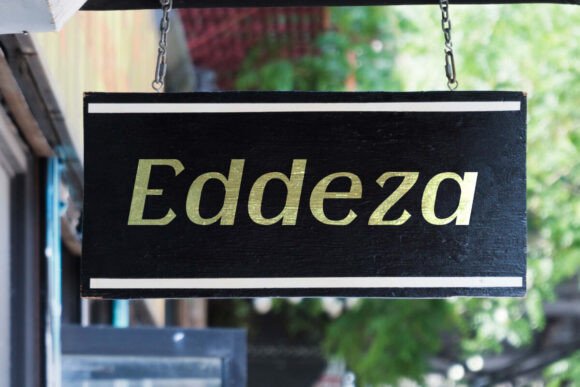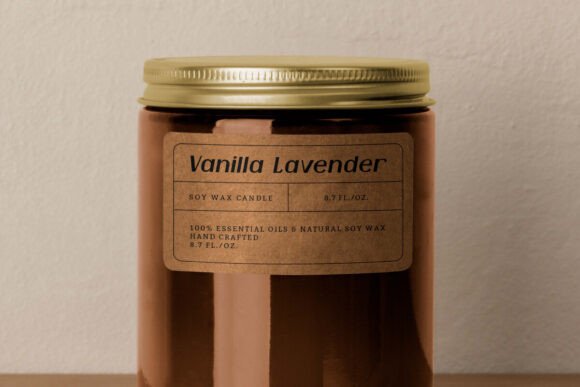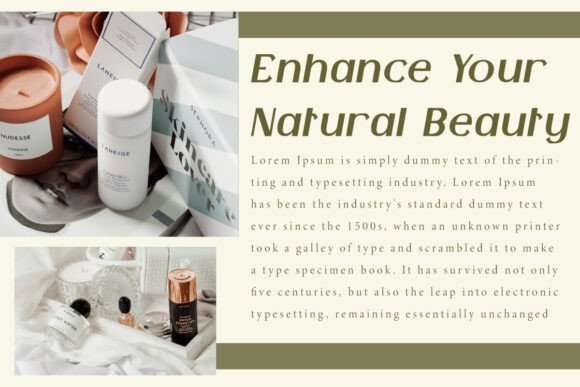
Being Nice Font
Being Nice Font is an italic basic yet classy stylish display font. This font has a unique impression and will remain timeless with its charm. It will be perfect for any designs, such as brand image, cover, custom design, invitation, label, marketing material, menu, poster, product packaging, quote, signage, stationery, and web, many more!